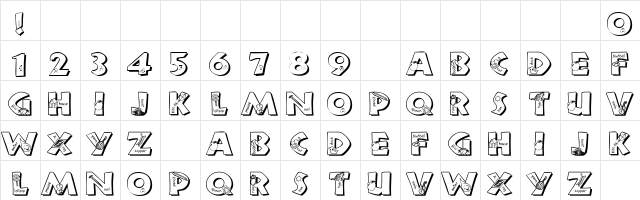
101! Alpha Pikture 'Bet Regular Free Font
101! Alpha Pikture 'Bet Regular
Complete 101! Alpha Pikture 'Bet Regular glyph index. Displaying only characters natively supported by 101! Alpha Pikture 'Bet Regular font.
Design Context for 101! Alpha Pikture 'Bet
101! Alpha Pikture 'Bet is a composed and adaptable typeface that performs quietly and consistently across a wide range of design contexts.